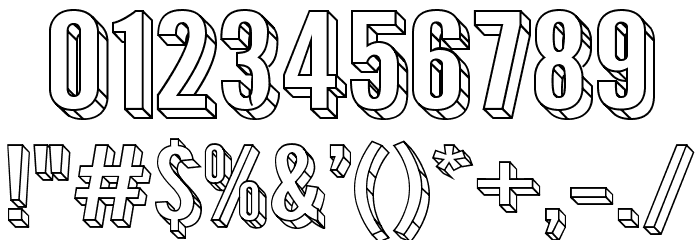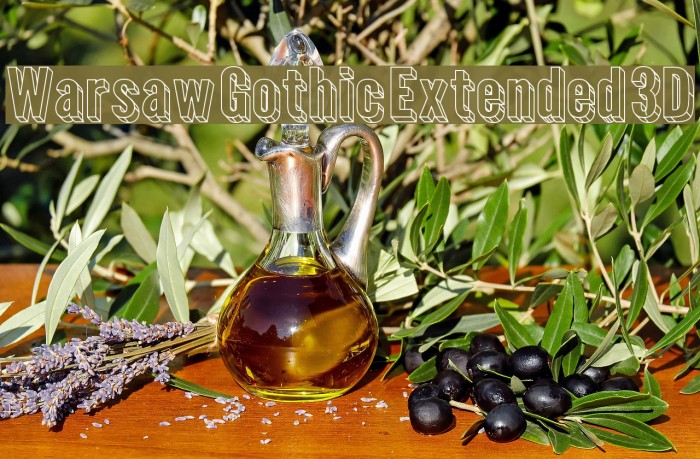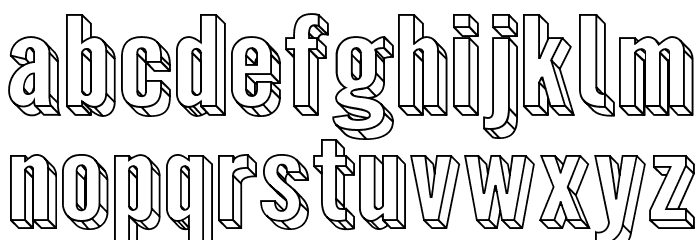
Warsaw Gothic Extended 3D Font
Warsaw Gothic Extended 3D Description
This font features a bold, three-dimensional design with a strong presence. The letters are outlined with a shadow effect, giving them a distinct 3D appearance. The uppercase and lowercase letters maintain a consistent style, with sharp edges and a geometric structure. The numbers and special characters follow the same design principles, ensuring uniformity across all glyphs. This font is ideal for making a statement, with its eye-catching and dynamic look.
| Proposed Projects | Ideal for posters, headlines, logos, and any design requiring a bold, impactful typeface. |